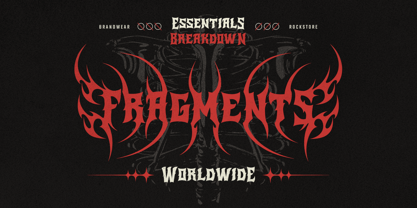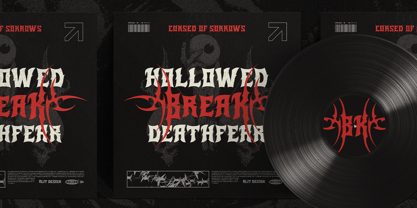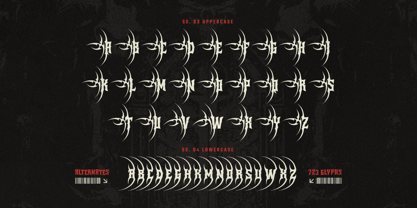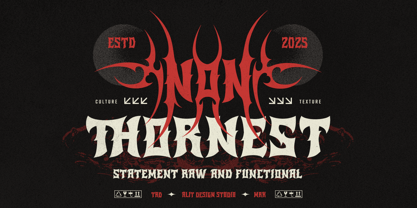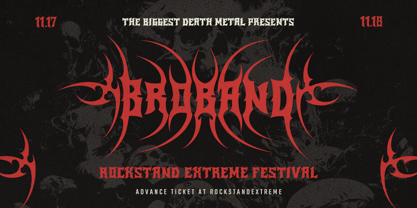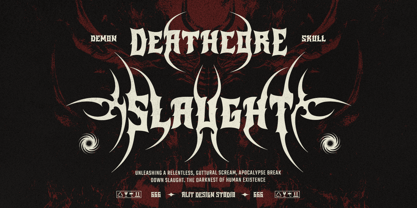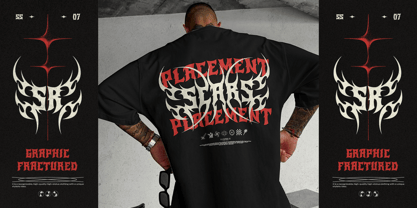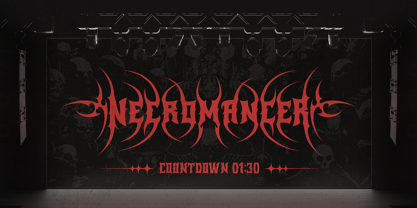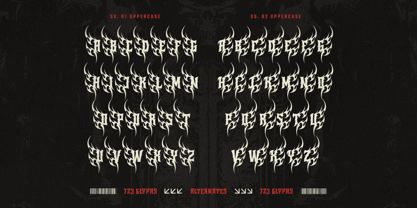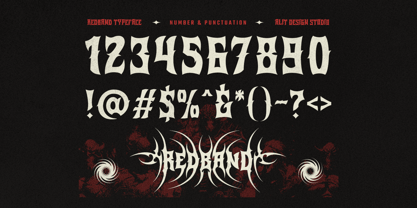
Redband
Red Band Typeface – Unleash the Fury of Metal Typography
Step into the world of raw power and untamed aggression with Red Band Typeface, a bold and ferocious typeface designed for those who refuse to go unnoticed. Inspired by the chaotic energy of heavy metal, gothic art, and tribal aesthetics, this font brings a dark and commanding presence to any design.
With its thorn-covered letterforms and razor-sharp tribal swashes, Red Band Typeface embodies rebellion, dominance, and strength. Perfect for metal band logos, album covers, streetwear branding, tattoo designs, extreme sports, gaming, horror movie posters, and more, this typeface is built for creators who demand impact.
🩸 728 Characters – Unmatched Versatility
Red Band Typeface doesn’t just stop at the basics. With a massive collection of 728 characters, you get an extensive range of letterforms, symbols, and embellishments, allowing for infinite customization in your designs.
⚔️ Alternate Characters – Forge Your Own Style
Tweak and modify your typography with alternate versions of select letters. These variations let you craft a unique, signature look, ensuring no two designs are the same.
🌪️ Tribal Swashes & Spikes – The Ultimate Dark Aesthetic
What’s a fierce font without intense tribal swashes and thorn-like spikes? These details add an extra layer of brutality to your text, making it look dangerous, aggressive, and unforgettable.
🌍 Multilingual Support – Speak to the World
Red Band Typeface is built for global reach, supporting a wide range of languages including English, Spanish, German, French, Portuguese, Italian, and more. No matter where your audience is, your designs will strike with the same brutal intensity.
💀 Where to Use Red Band Typeface?
🔹 Metal Band Logos & Album Covers – Give your music the visual power it deserves.
🔹 Tattoo & Streetwear Branding – Build an identity that screams rebellion.
🔹 Gaming & Horror Designs – Perfect for dark, sinister, and apocalyptic aesthetics.
🔹 Movie Posters & Merchandise – From thrillers to gothic horror, this font sets the tone.
🔹 Extreme Sports & Energy Brands – Channel the raw energy of speed and adrenaline.
If you're looking for a font that embodies the brutality of metal, the artistry of gothic calligraphy, and the chaos of tribal ink, Red Band Typeface is your ultimate weapon.
💀 Dare to create. Dare to be fierce. Red Band Typeface is here to dominate. 💀